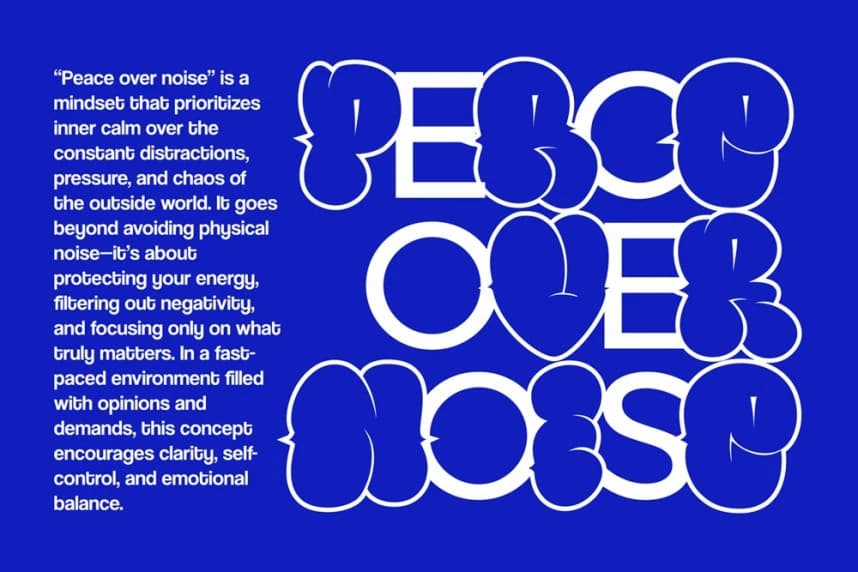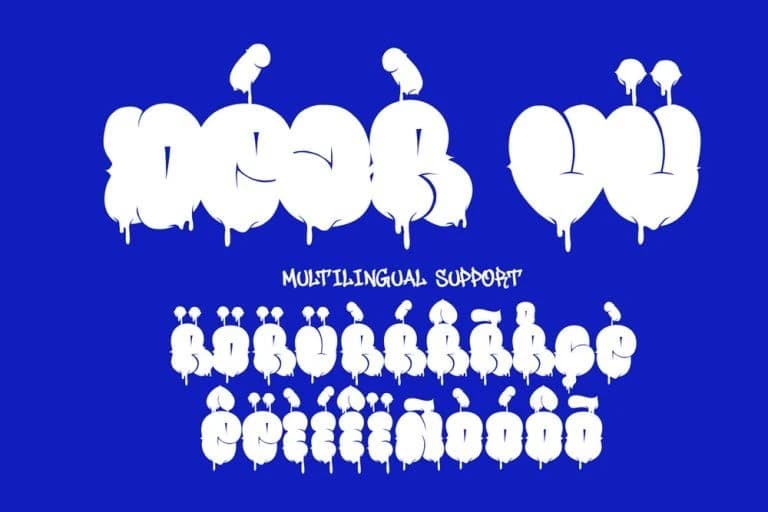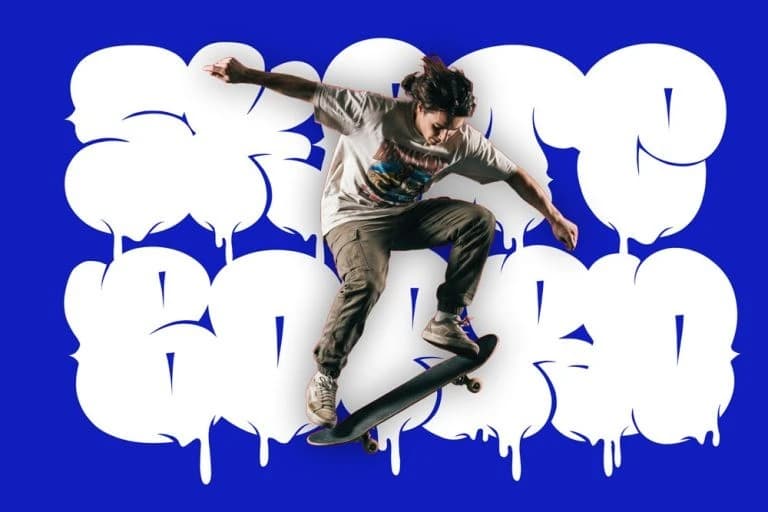
Melto Gofer Font
Melto Gofer Font is a bold and playful graffiti font inspired by classic throw-up lettering and bubble-style street art. Designed to capture the fast, expressive energy of urban tagging, this bubble graffiti font blends rounded shapes with dripping effects to create a dynamic